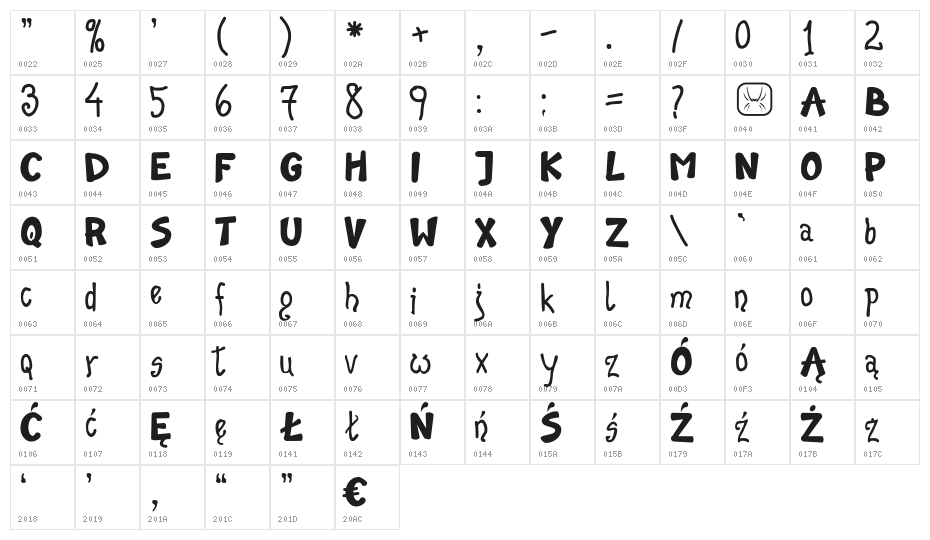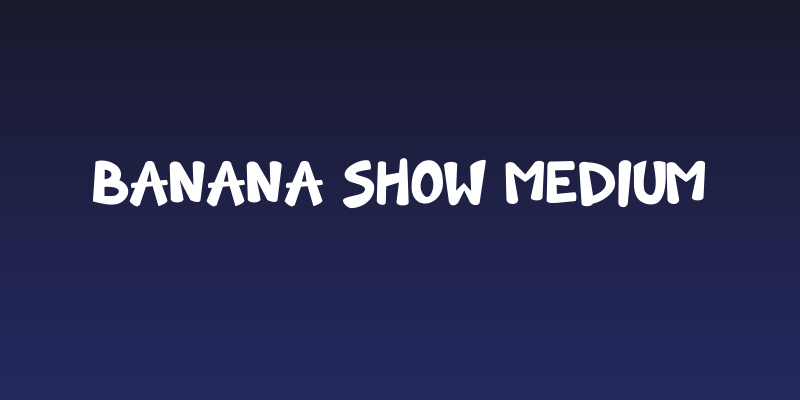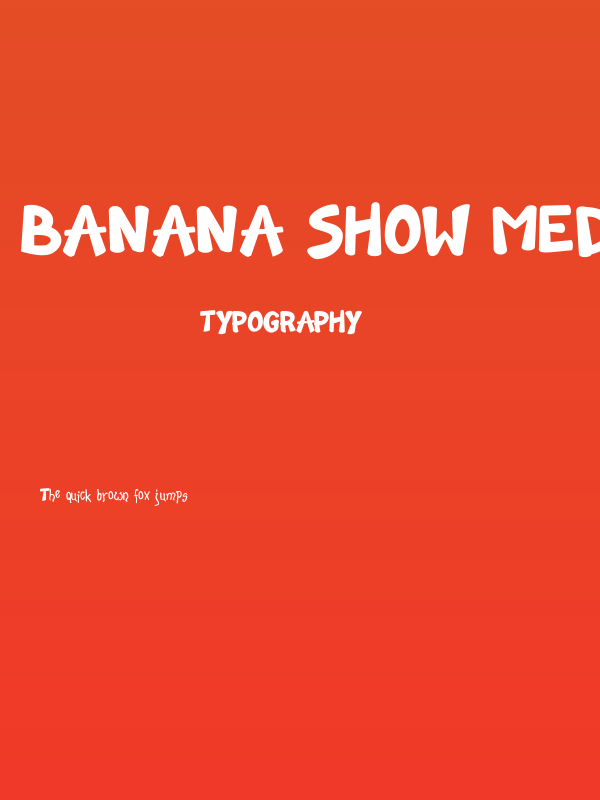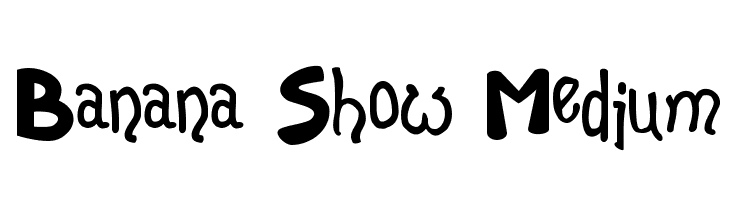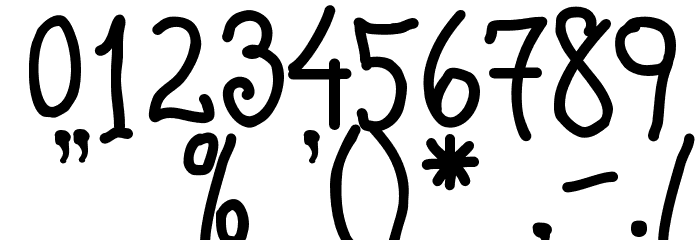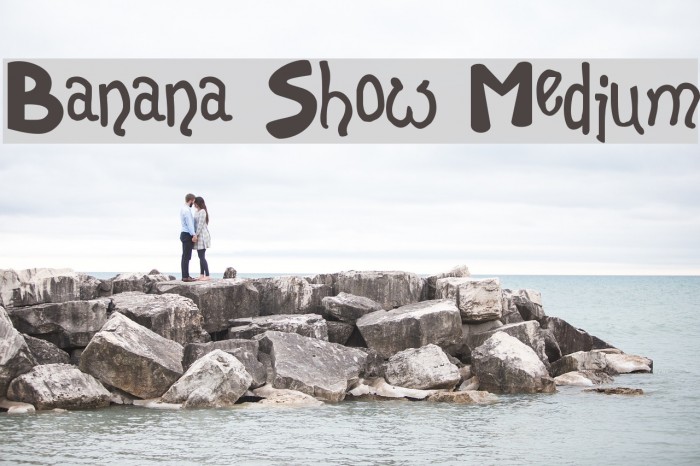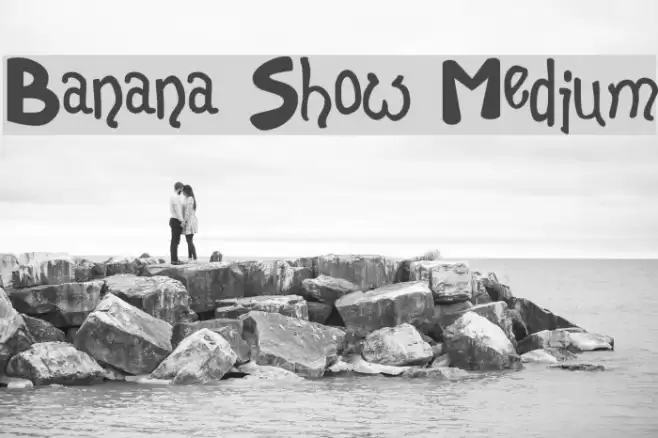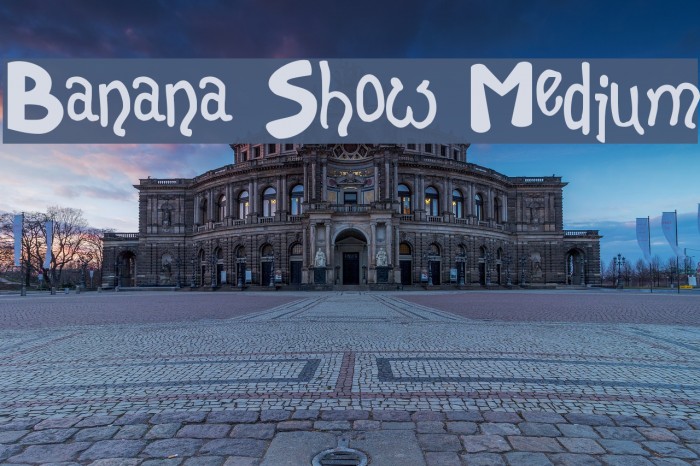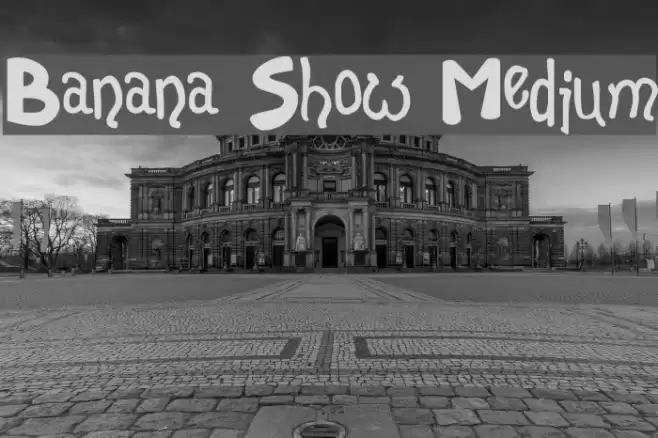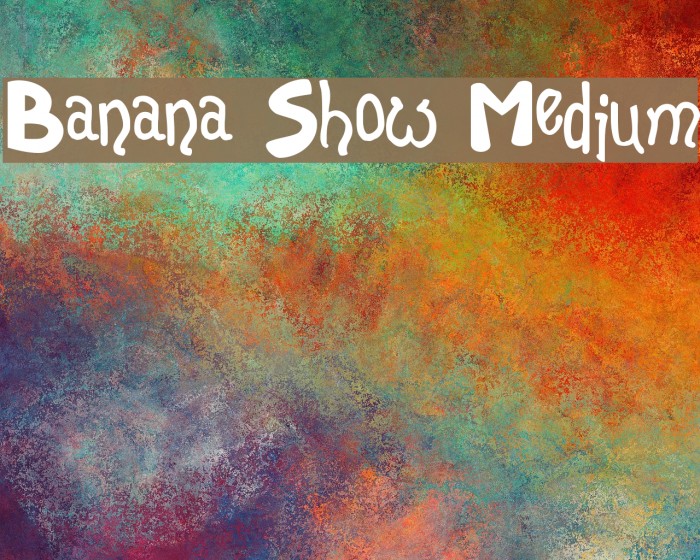
Banana Show Medium Font
Banana Show Medium Description
This playful and whimsical font features bold, rounded characters with a hand-drawn aesthetic. The uppercase letters are slightly irregular, giving a lively and dynamic feel, while the lowercase letters maintain a consistent style with unique quirks. The numbers and special characters follow the same playful design, making the font suitable for creative and informal projects. The strokes are thick and consistent, providing a strong presence on the page. This font is ideal for projects that require a fun and engaging look.
| Overall Style | Playful |
| Proposed Projects | Ideal for children's books, playful branding, party invitations, and creative posters. |